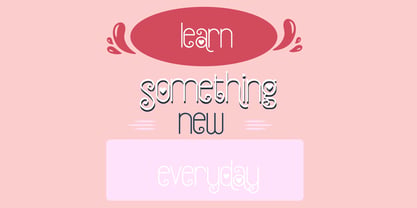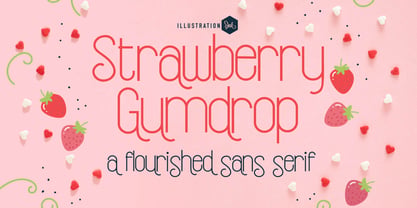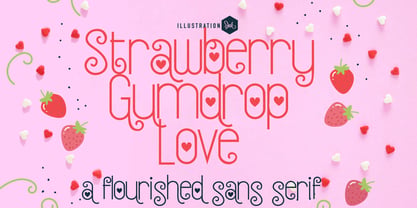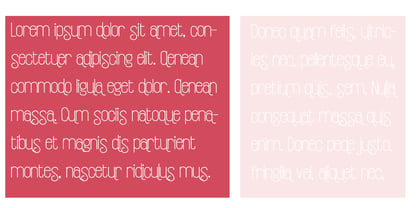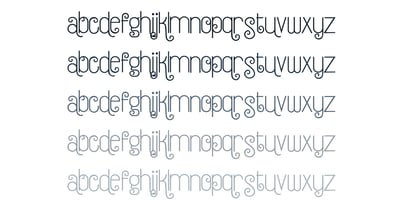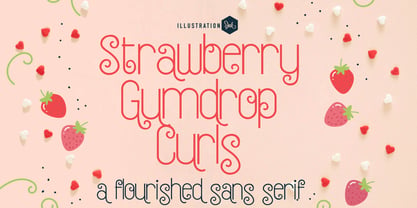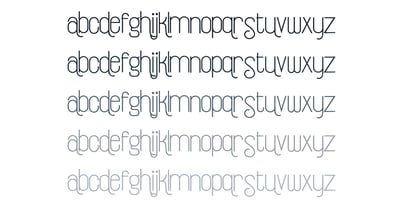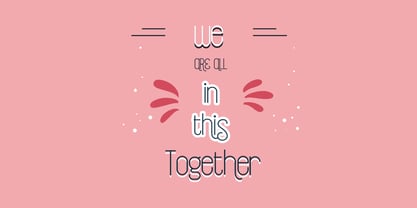
ZP Strawberry Gumdrop
by Illustration Ink
The ZP Strawberry Gumdrop Font Family was designed by Illustration Ink and published by Illustration Ink. ZP Strawberry Gumdrop contains 11 styles and family package options. More about this family
This hand-crafted font is a boxy sans serif with curls throughout. Several family members sport extra flourishes and curls and hearts as well. Hand-crafted fonts can be either formal or informal, and they can be used for a variety of purposes. Some of the characteristics of handwritten fonts include: The letters are not perfectly uniform in size or shape. There may be slight variations in the spacing between letters and words. The font may have a "wiggly" or "squiggly" appearance. The font may be difficult to read at small sizes. Handwritten fonts can be a great way to add a casual touch to your designs. They can also be used to create a sense of nostalgia or whimsy. However, it is important to choose a handwritten font that is appropriate for the project you are working on. A formal handwritten font may not be appropriate for a casual invitation, while an informal handwritten font may not be appropriate for a corporate document.
Designers: Illustration Ink
Foundry: Illustration Ink